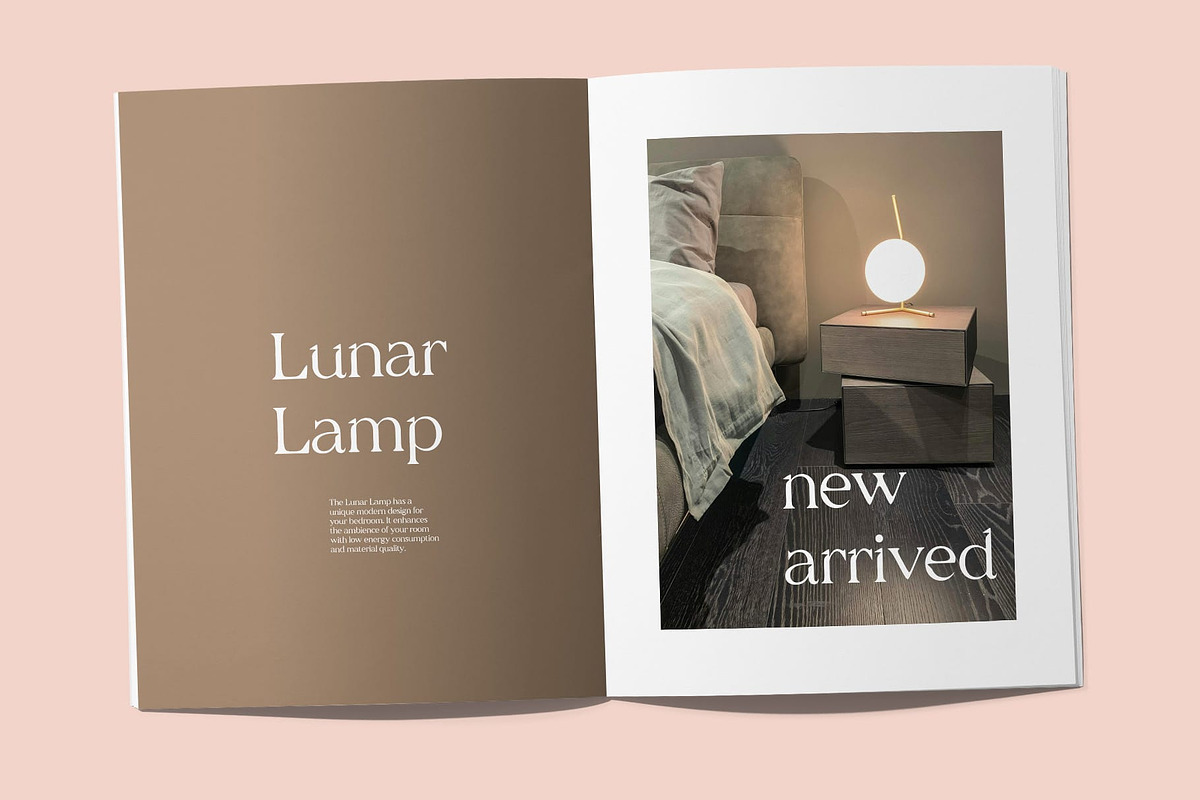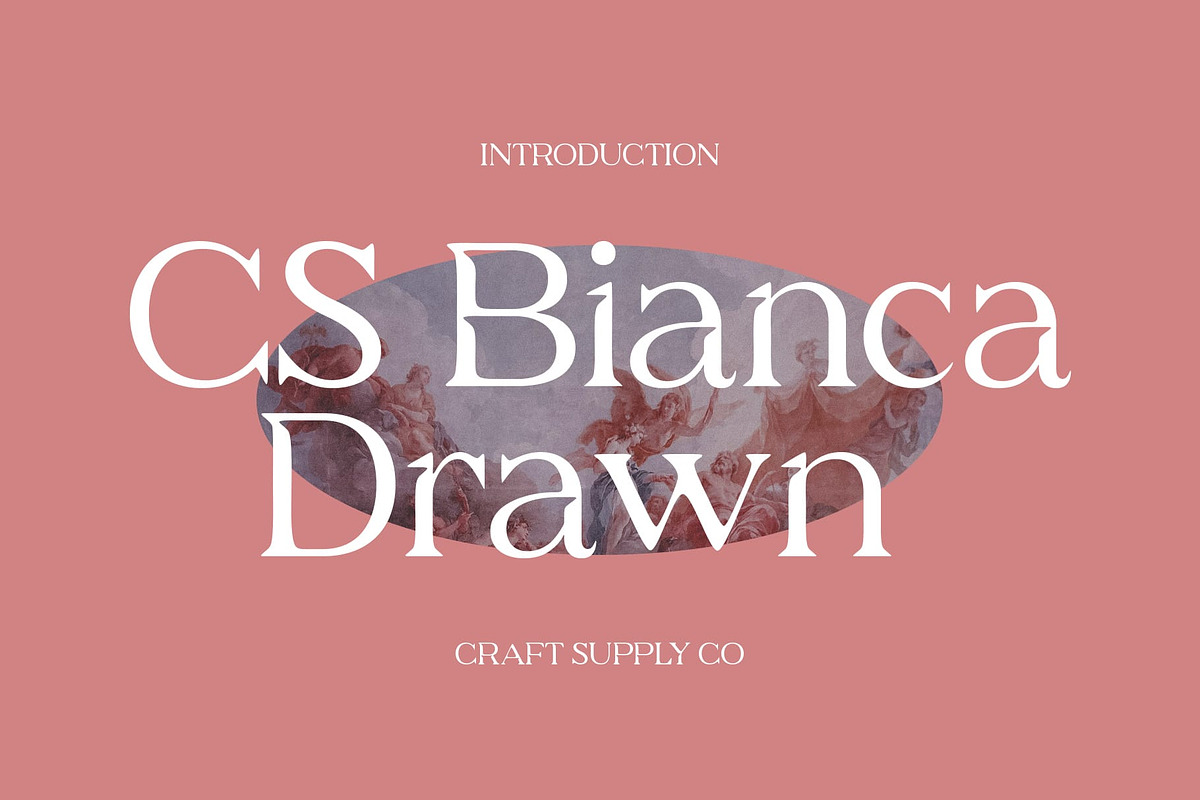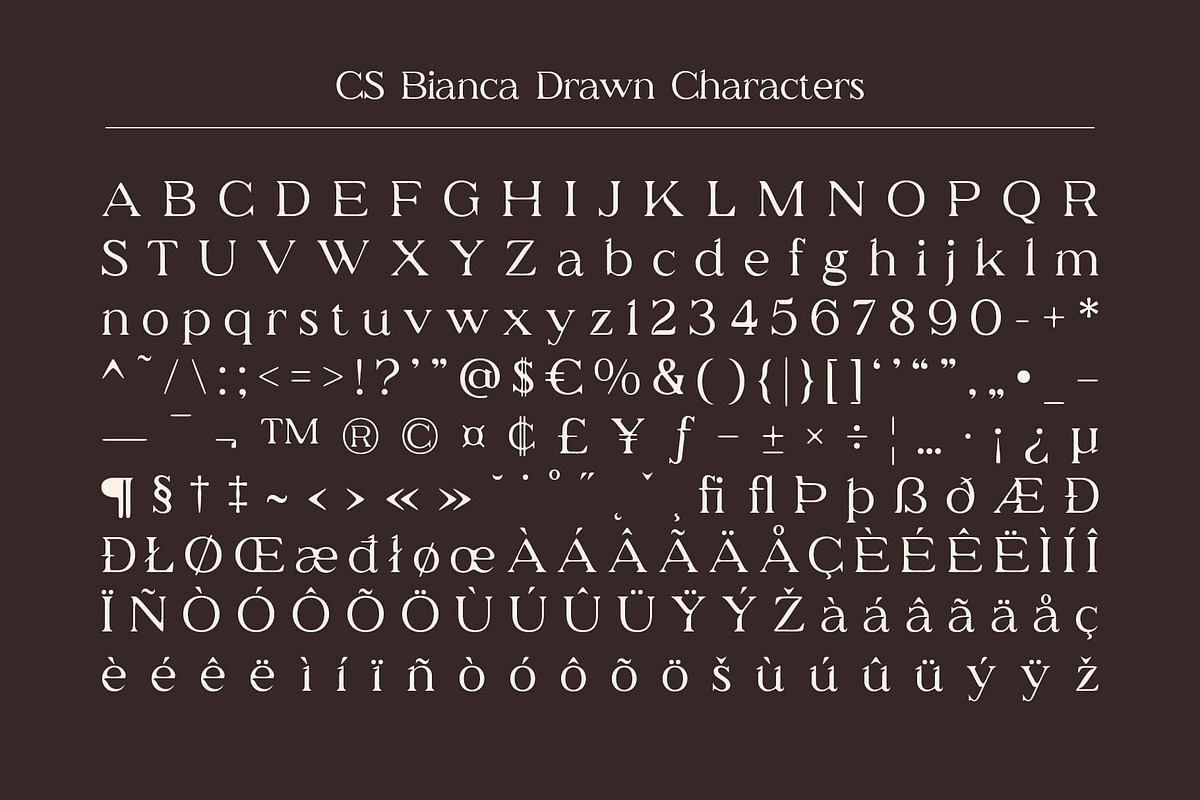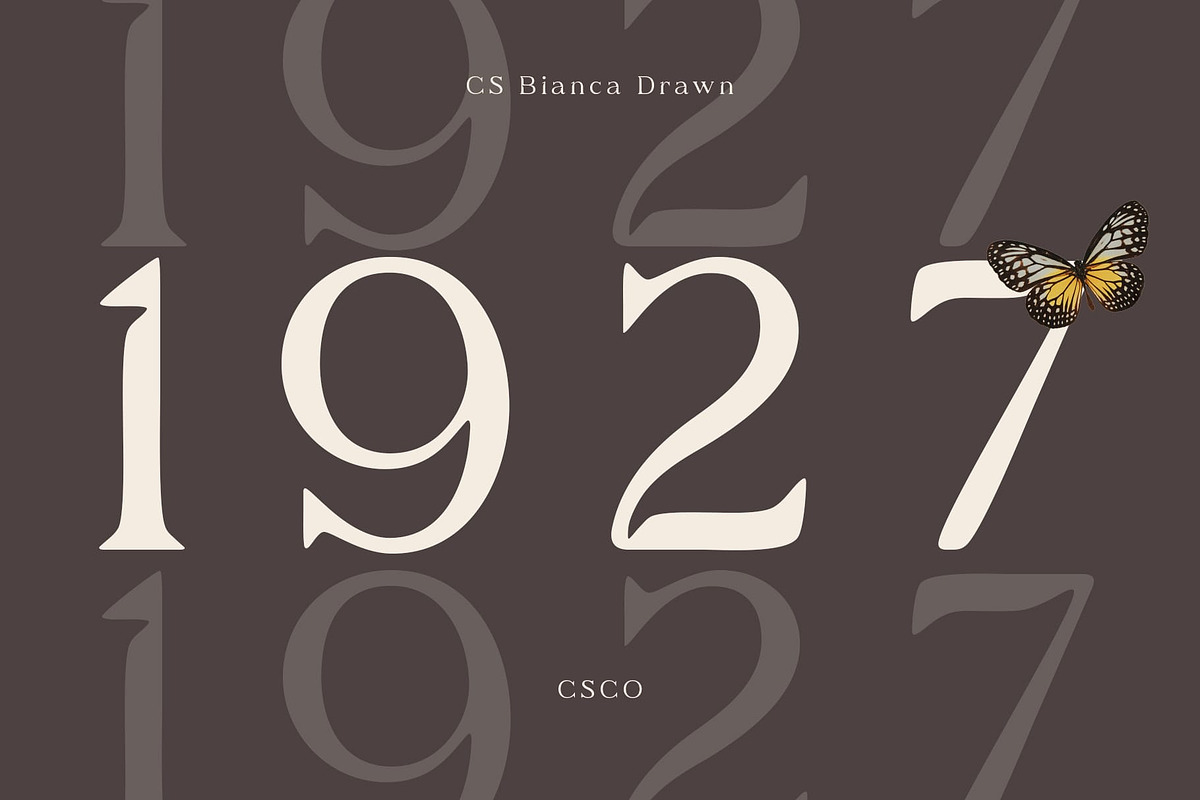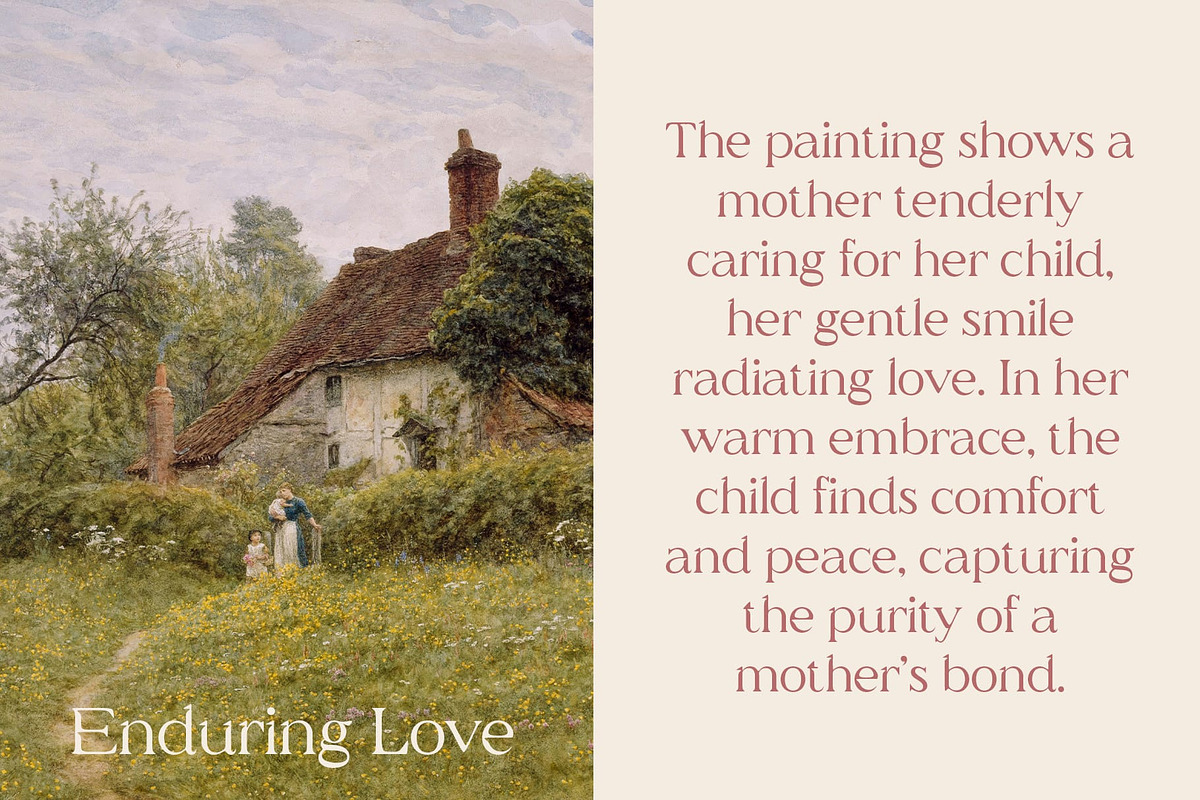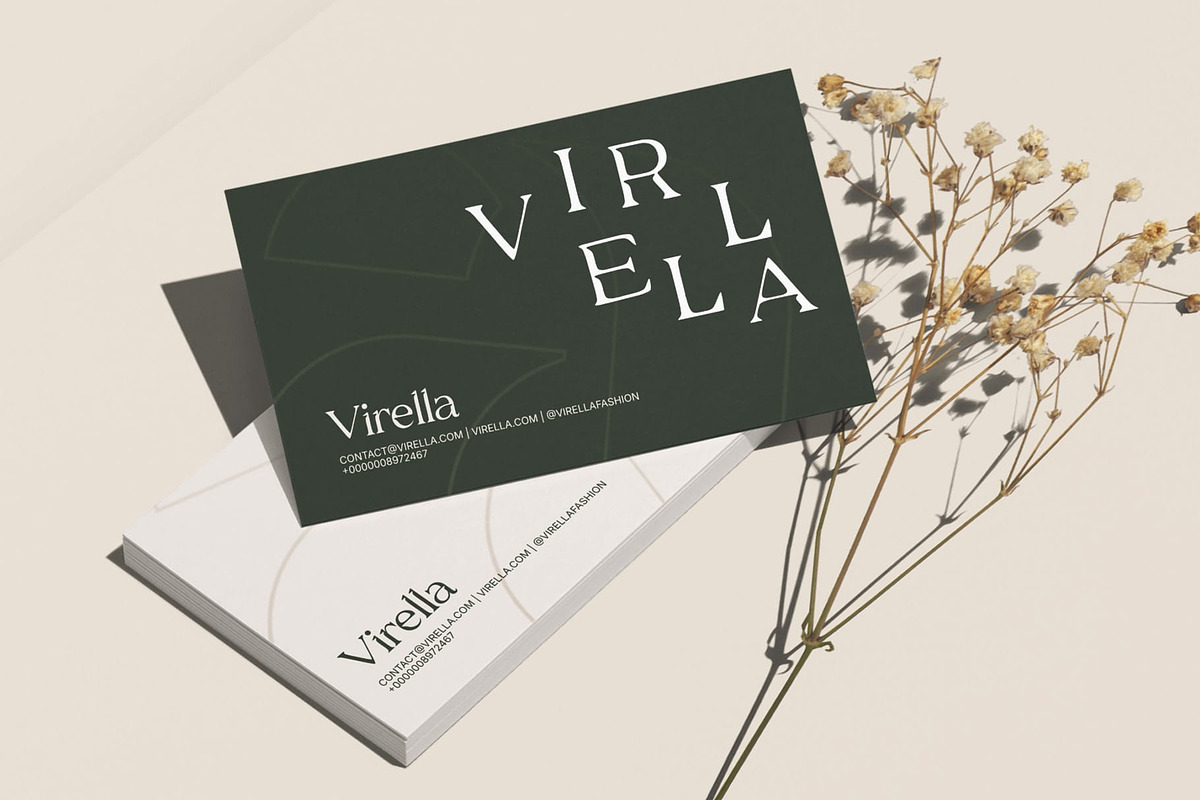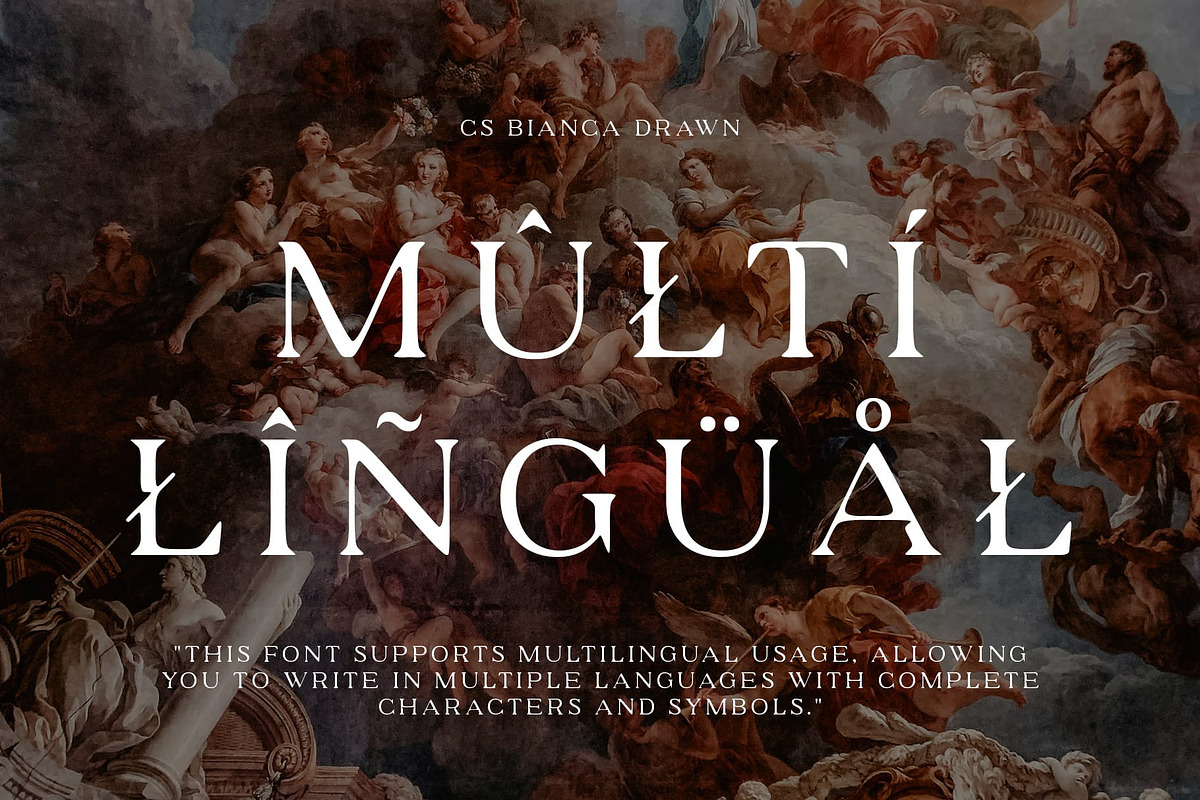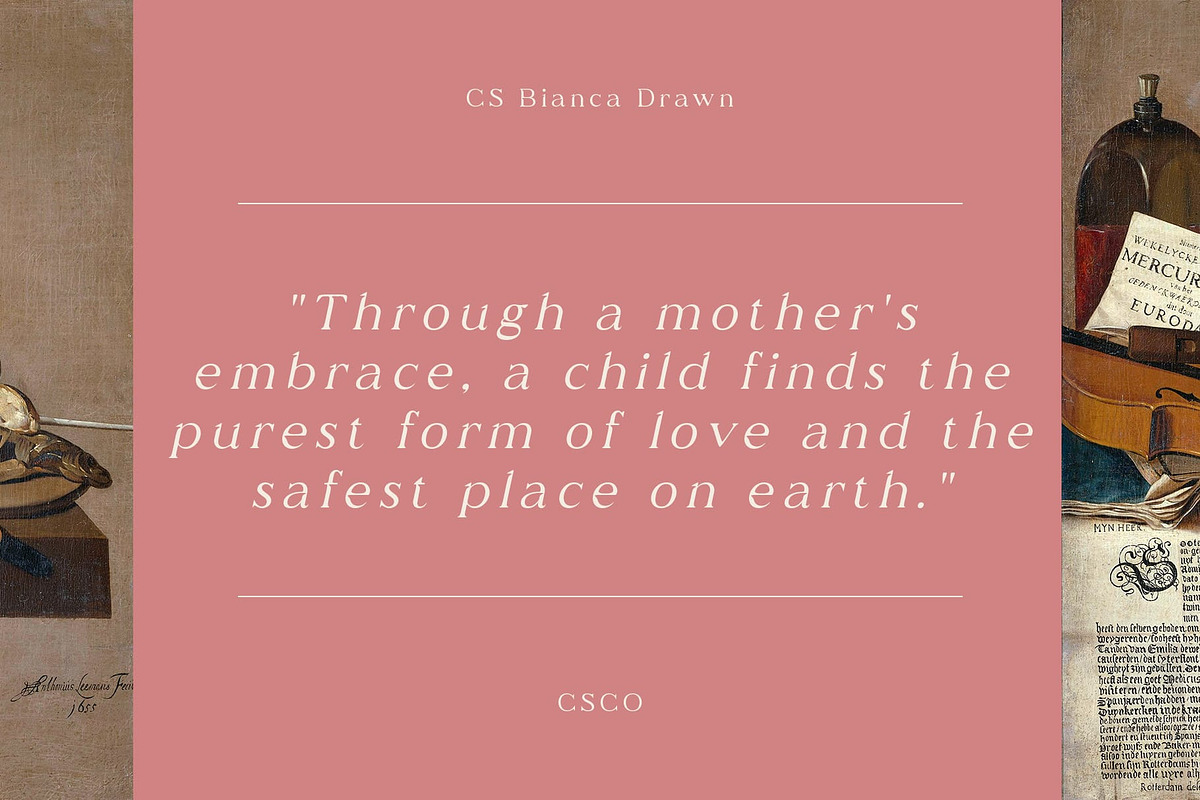
CS Bianca Drawn
CS Bianca Drawn – Refined Elegance with a Personal Touch
Classic Luxury Meets Modern Sophistication CS Bianca Drawn is a modern serif font that beautifully blends clean, contemporary design with a subtle traditional touch. Featuring strong, defined letterforms with delicate detailing, it exudes both luxury and timeless sophistication. The balanced proportions and sleek lines give it a refined elegance, while the carefully crafted drawn effect adds depth and a unique artistic flair, ensuring each letter feels personable and distinctive.
Hand-Drawn Effect for Warmth and Character The drawn effect on this font is what sets it apart, providing a handcrafted quality that gives the font a sense of personality and warmth. This organic, artisanal touch adds a layer of creativity to the strong, structured shapes, making the font both professional and approachable. The combination of modern design and the hand-drawn detailing results in a harmonious contrast that enhances its visual appeal, perfect for projects requiring a sophisticated yet intimate look.
Perfect for Luxury and Traditional Designs Ideal for high-end branding, formal invitations, luxury publications, or any project that blends modern elegance with timeless warmth, this drawn font is a versatile font that speaks to both refinement and creativity. Whether you’re working on a prestigious event, a classic branding project, or a traditional-style print material, this font ensures your design stands out with a sense of grace and character.